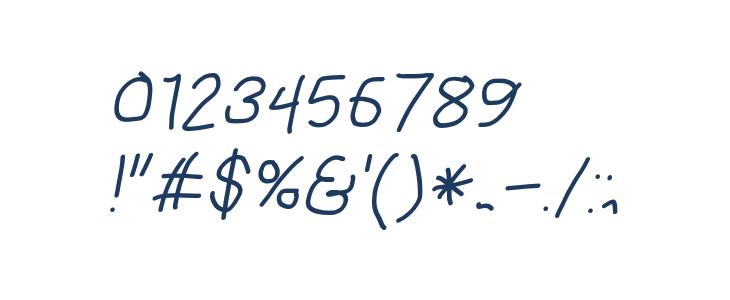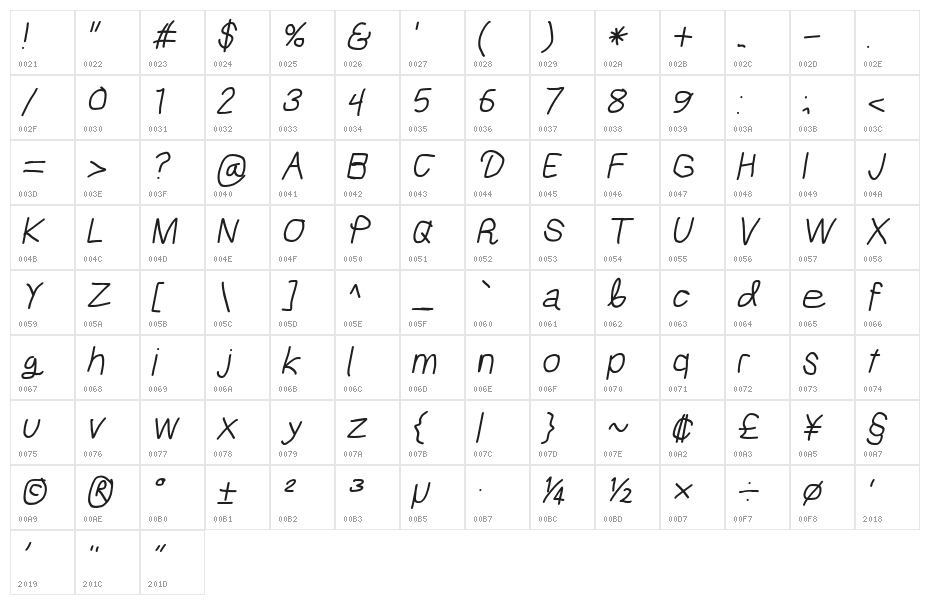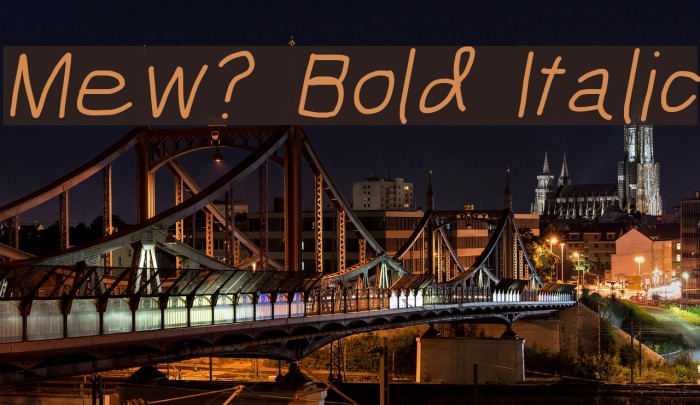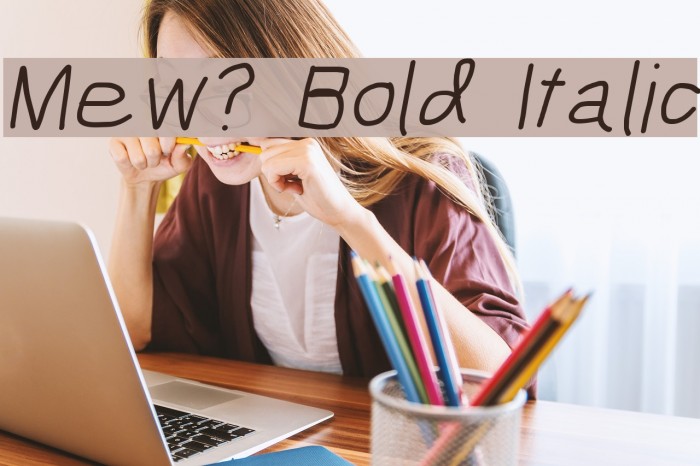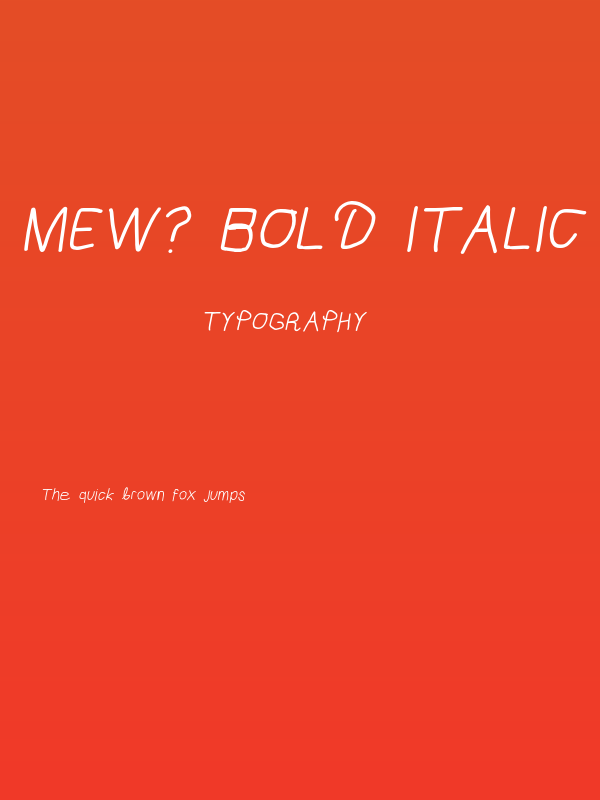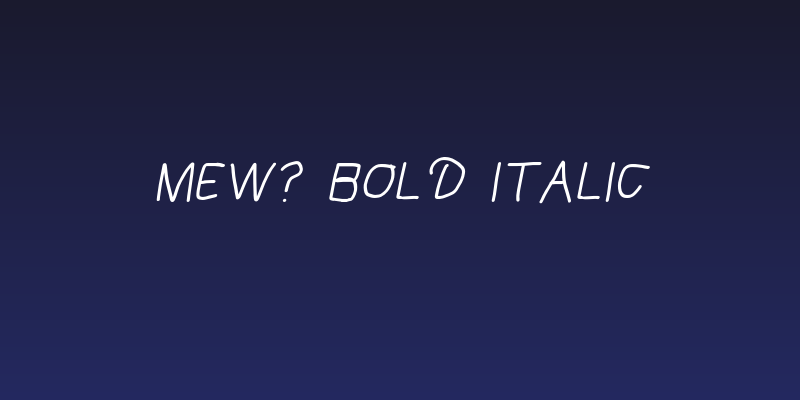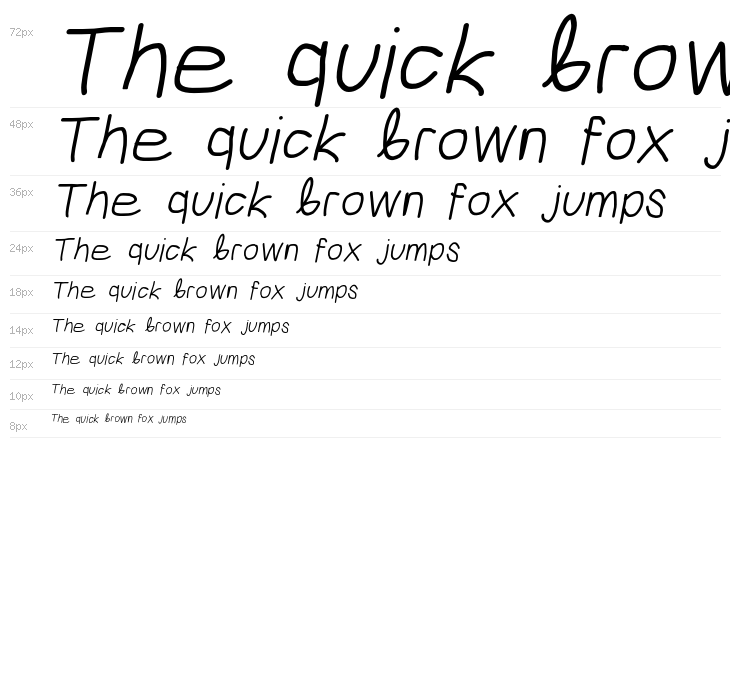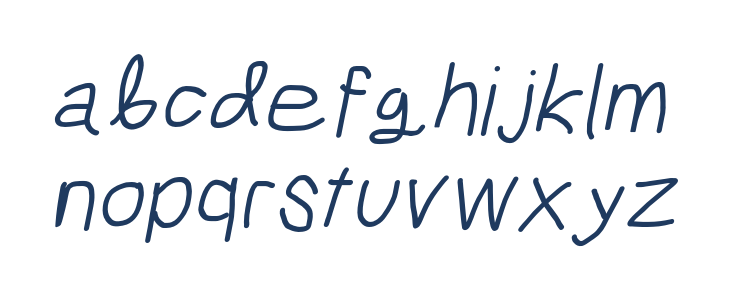
Mew? Bold Italic Font
Mew? Bold Italic Description
This font features a playful and dynamic handwritten style with a bold and italicized appearance. The characters are slightly slanted, giving a sense of movement and energy. The strokes are smooth and rounded, creating a friendly and approachable look. The uppercase and lowercase letters maintain a consistent style, with a slight variation in the thickness of the strokes, adding to the overall charm. The numerals and special characters are designed to match the whimsical nature of the letters, making this font suitable for creative and informal applications.